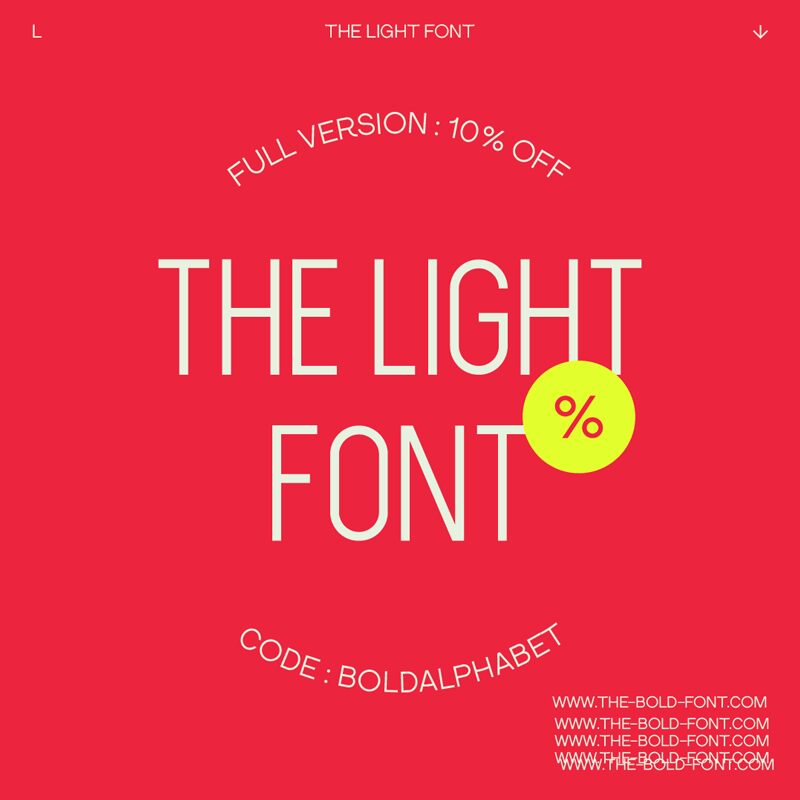
THE LIGHT FONT DEMO VERSION
The Light font by Sven Pels is a sans serif design that exudes elegance with its geometric structure and clean lines. Condensed and minimalist, it offers a modern aesthetic suitable for various visual projects. The font's structured appearance allows for an organized yet artistic look, so each element has its place within the overall polished arrangement.
Use this free condensed font to work on book covers, business cards, UX and UI designs, magazines, newspapers, or brochures. The combination between classic elegance and modern minimalism makes for flawless branding designs such as logos or packaging items or engaging posters and social media posts.